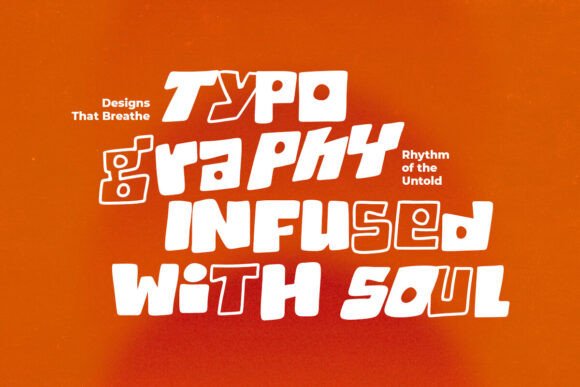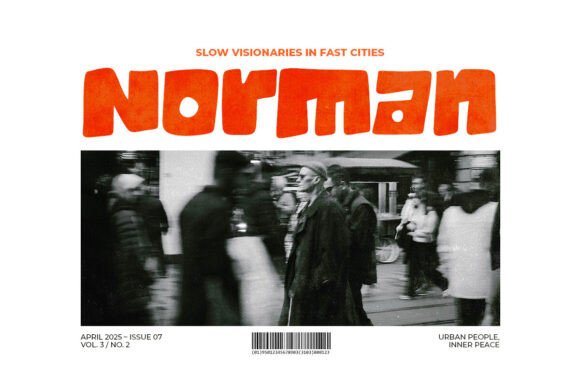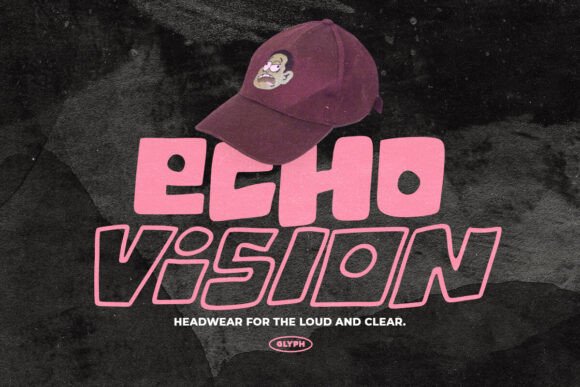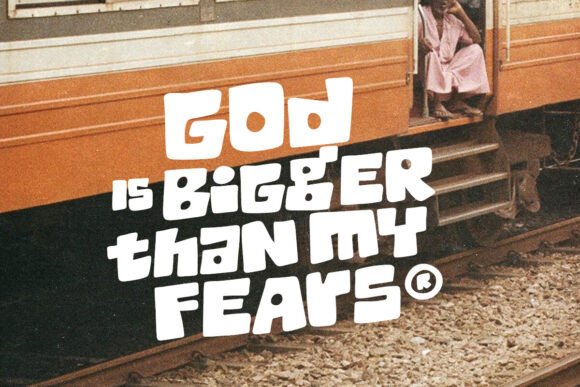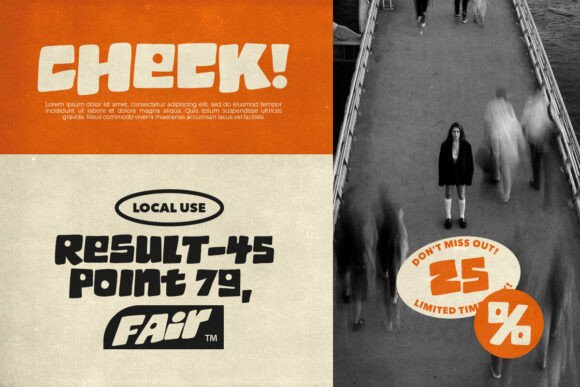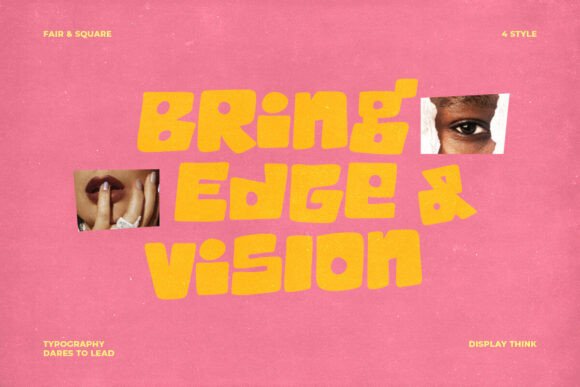
Introducing Fair Square Font: A Bold and Unique Typeface for Stunning Designs
Are you tired of using the same old fonts for your designs? Look no further! Fair Square Font is a game-changer for designers and crafters alike. This chunky, bold font is perfect for making a statement with your designs. With its unique uppercase and lowercase letters, you can combine them in a word to create a stunning visual effect.
What Makes Fair Square Font Special?
Fair Square Font is not just any ordinary font. Its bold and chunky design makes it perfect for posters, quotes, branding, or logotypes. The font comes with a range of features that set it apart from others. Here are some of its key features:
• Unique Uppercase and Lowercase Letters: The font features unique uppercase and lowercase letters that can be combined to create a visually appealing effect.
• Italic and Outline Versions: Fair Square Font comes with italic and outline versions, giving you more flexibility and options for your designs.
• High-Quality Design: The font is designed with high-quality craftsmanship, ensuring that it looks great in any design.
How to Use Fair Square Font in Your Designs
Fair Square Font is versatile and can be used in a variety of design projects. Here are some ideas to get you started:
• Posters: Use Fair Square Font to create eye-catching posters that grab attention.
• Quotes: Add a touch of personality to your quotes with this unique font.
• Branding: Use Fair Square Font to create a bold and memorable brand identity.
• Logotypes: Create a stunning logotype with Fair Square Font that represents your brand.
Benefits of Using Fair Square Font
Fair Square Font offers a range of benefits for designers and crafters. Here are some of the advantages of using this font:
• Stand Out from the Crowd: With Fair Square Font, you can create designs that stand out from the crowd and grab attention.
• Easy to Read: Despite its bold design, Fair Square Font is easy to read, making it perfect for body text and headings.
• Flexibility: The font comes with italic and outline versions, giving you more flexibility and options for your designs.
• Time-Saving: Fair Square Font is a high-quality font that saves you time and effort in creating unique designs.
Tips for Getting the Most Out of Fair Square Font
To get the most out of Fair Square Font, here are some tips to keep in mind:
• Experiment with Different Combinations: Try combining uppercase and lowercase letters to create a unique visual effect.
• Use it for Headings and Titles: Fair Square Font is perfect for headings and titles, making it a great addition to your design toolkit.
• Pair it with Other Fonts: Experiment with pairing Fair Square Font with other fonts to create a stunning visual effect.
Fair Square Font is a bold and unique typeface that can elevate your designs to the next level. With its chunky design, unique uppercase and lowercase letters, and italic and outline versions, it’s perfect for a range of design projects. Whether you’re a designer or crafter, Fair Square Font is a great addition to your toolkit. So why wait? Download Fair Square Font today and start creating stunning designs!